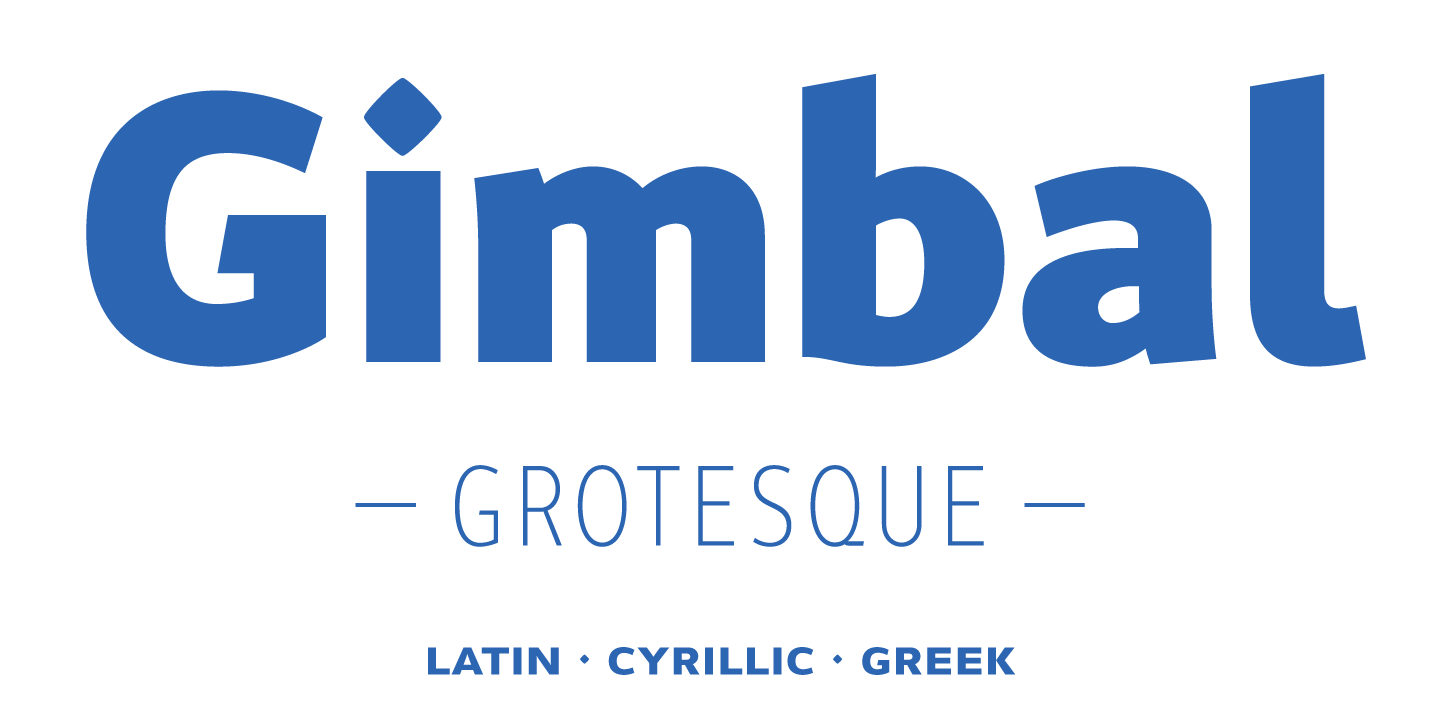
Gimbal Grotesque
Gimbal Grotesque is a sans serif font family. This typeface has forty-eight styles and was published by Aviation Partners.
Gimbal Grotesque is a richly-featured font family providing many style options across a broad range of languages. It is twinned with Gimbal Egyptian, a slab-serif family with an identical range of weights and features.
Originally conceived as a small webfont family, the letterforms have been revitalised to put a spring in their step and the family has been extended to create a versatile multi-script text face equally at home on the printed page. Carefully crafted at all weights, Gimbal also lends itself to headlines and display applications such as posters, exhibitions and signage while resolving well on-screen for general document creation and web-based applications.
The letters are spaced for best readability on-screen and in the usual printed body text ranges but are tolerant of tracking adjustment to suit other uses. The styles are divided by width into four families (Compressed, Condensed, Normal, Extended), each family possessing six weights plus corresponding italics. Within each family, the ‘regular’ and ‘bold’ weights are style-linked, and all upright forms have an italic counterpart.
The full opentype character set includes latin, greek and cyrillic scripts with appropriate local variants (also as stylistic sets) for Turkish, Polish and Romanian (latin) and Russian, Bulgarian and Serbian (cyrillic). All fonts contain small capitals for all scripts, superscript for latin and commonly used greek together with the usual numeral style, size and positioning options. The default numerals are ‘proportional lining’. Other opentype features include case-sensitive marks, fractions, and some discretionary ligatures. A set of circled numerals and circled latin capitals is included, along with an unusual feature that composes 2-character country codes.